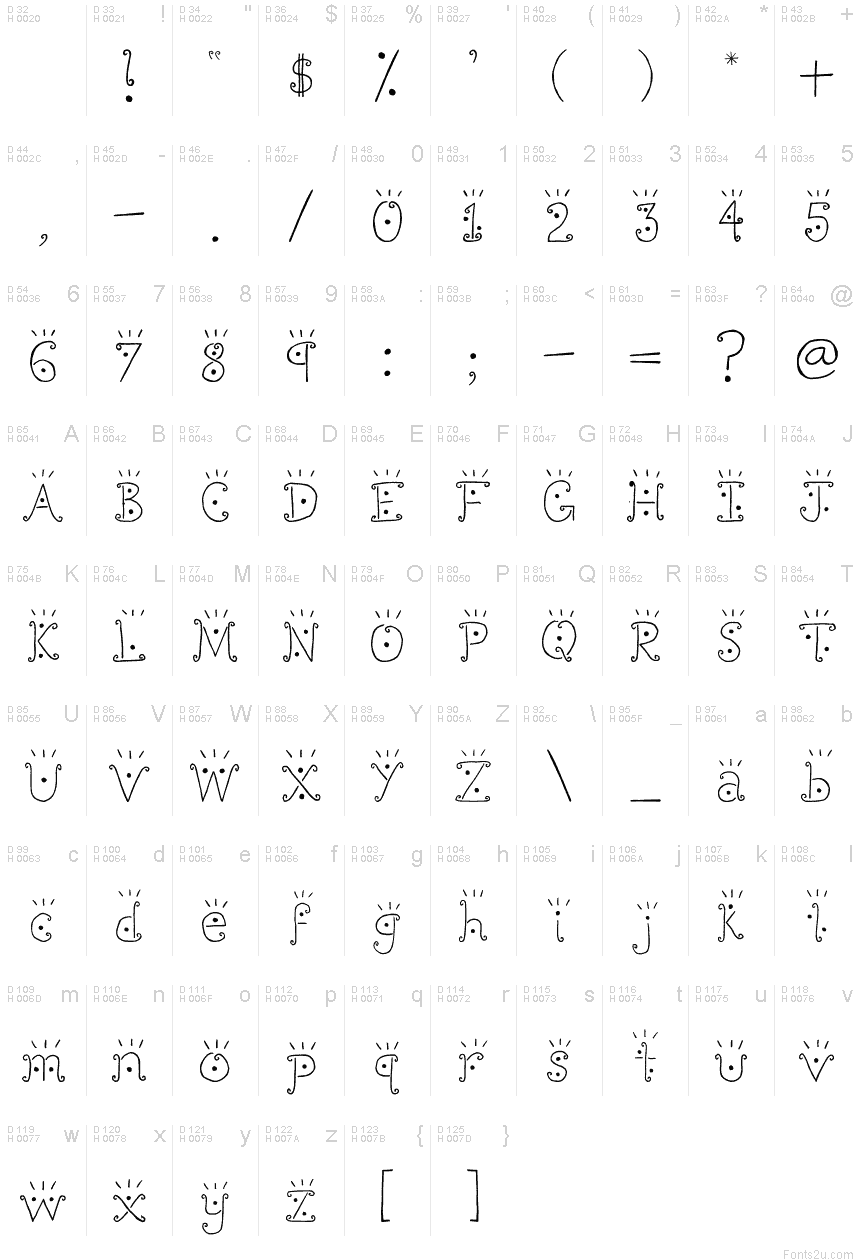
Kingdom is a free curly cartoon display font with slim, hand-drawn strokes and a storybook air. Rounded loops, inward curls, dot-like accents, and small radiating marks turn the letters into lively ornamental forms.
Its loops and spark-like strokes echo whimsical line illustration, making it apt for children's book covers and fantasy-themed posters. The same playful construction can shape candy packaging or party invitations, where the lettering feels connected to doodles, stars, and simple character art. It is especially convincing in illustrated titles with a fairy-tale subject.